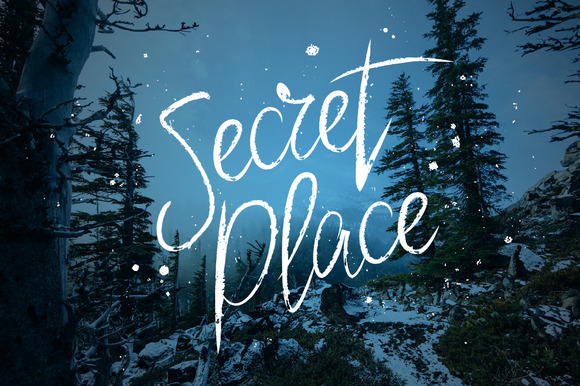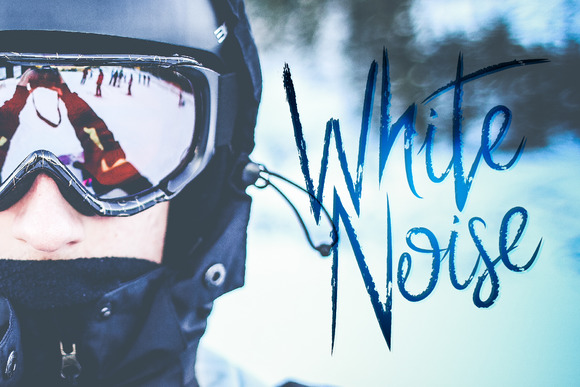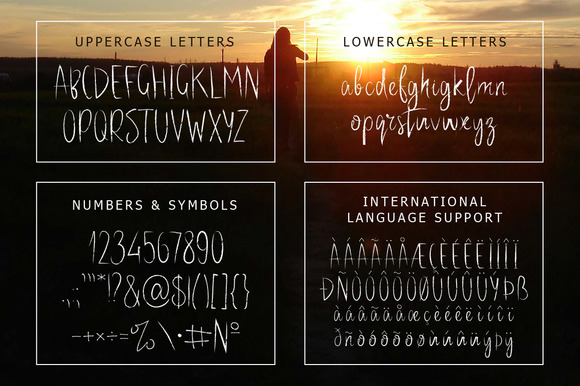
HomeScript FontsArlin Font Script Fonts Arlin Font FacebookXPinterestWhatsApp Arlin Font Poster 2 Arlin Font Poster 3 Arlin Font Poster 4 About Arlin Font Arlin is a hand-brushed font with thin lines. DOWNLOAD NOW People also explored Legacy Font Retro Love Font Hello Diandra Font Melyana Font Darcey Oliver Font Blue Clouds Font MFC Billow Monogram Sandal Sepatu Font Drunk Jola Font 502 0 TagsArlin Font Previous articleElvissa FontNext articleShailettering Font LEAVE A REPLY Cancel reply Comment: Please enter your comment! Name:* Please enter your name here Email:* You have entered an incorrect email address! Please enter your email address here Website: Save my name, email, and website in this browser for the next time I comment. Personal Use Free Stronger Personal Use Free Read more about this font Arabella Script Personal Use Free Read more about this font Eric”s Personal Use Free Read more about this font Farmgarden Personal Use Free Read more about this font BLOG Exploring Font Trends Shaping Communication in the Digital Era Fonts, like all design elements, are subject to trends. They play a crucial role in communicating a brand's personality,... 5 Fonts That Will Dominate Design Trends in 2026 Where to Buy American Fonts Online in 2024 To increase your work productivity, choose the most readable fonts.